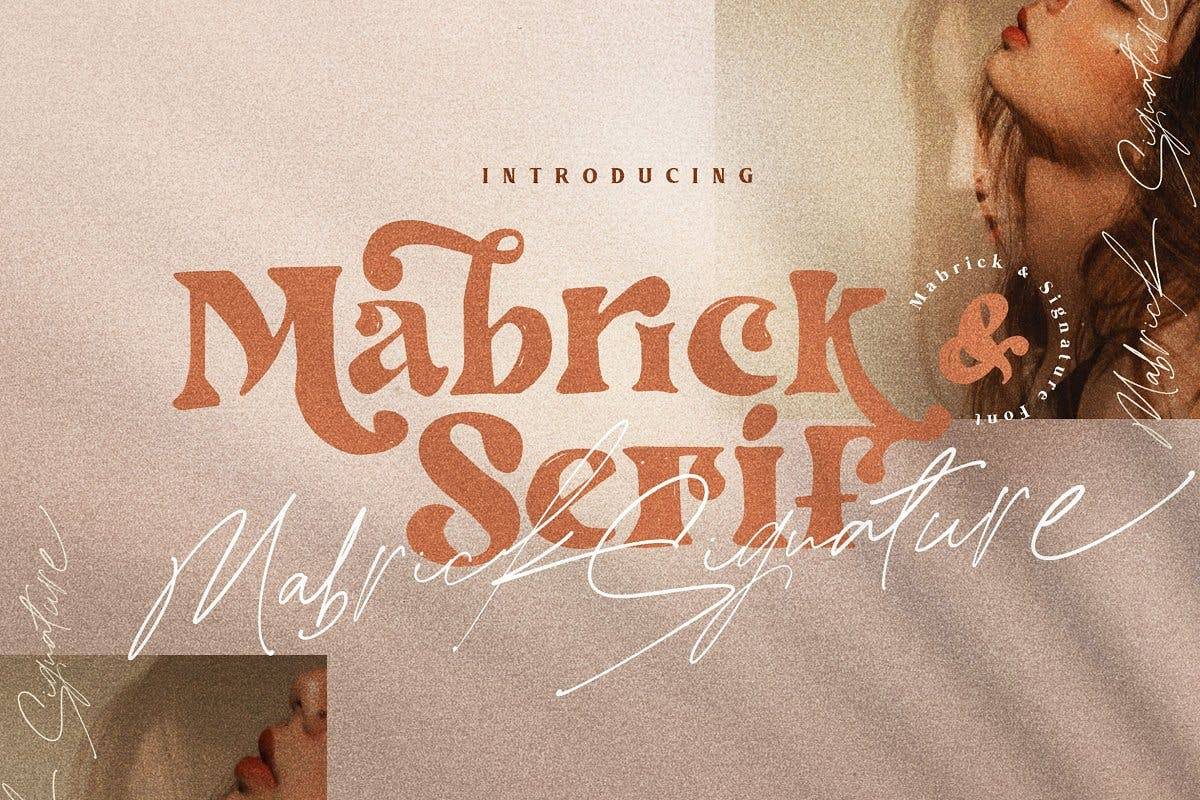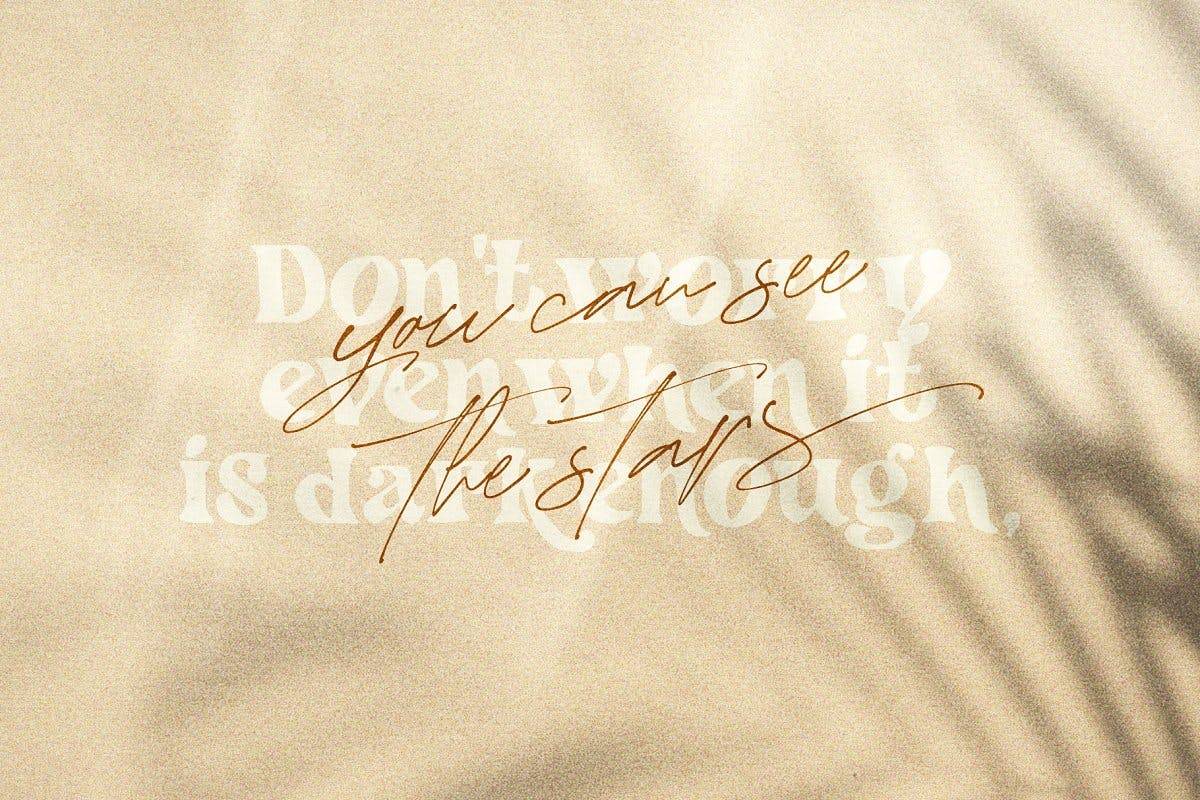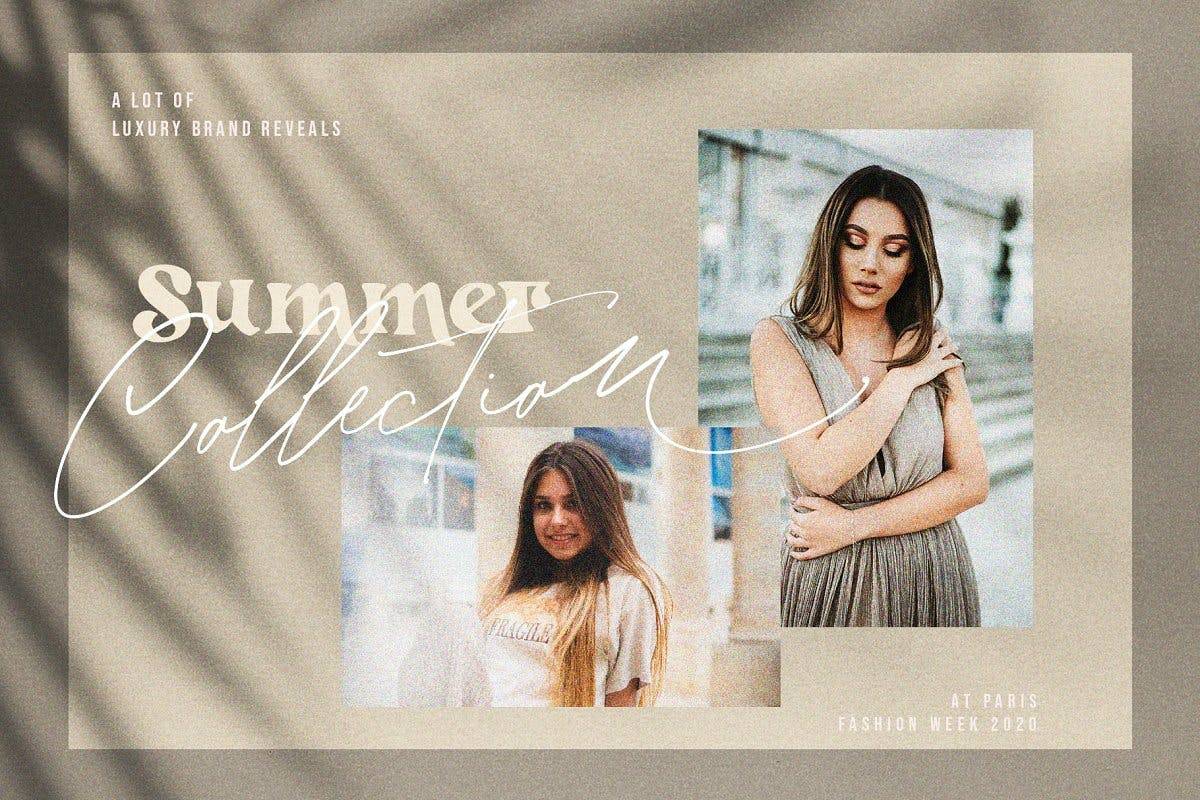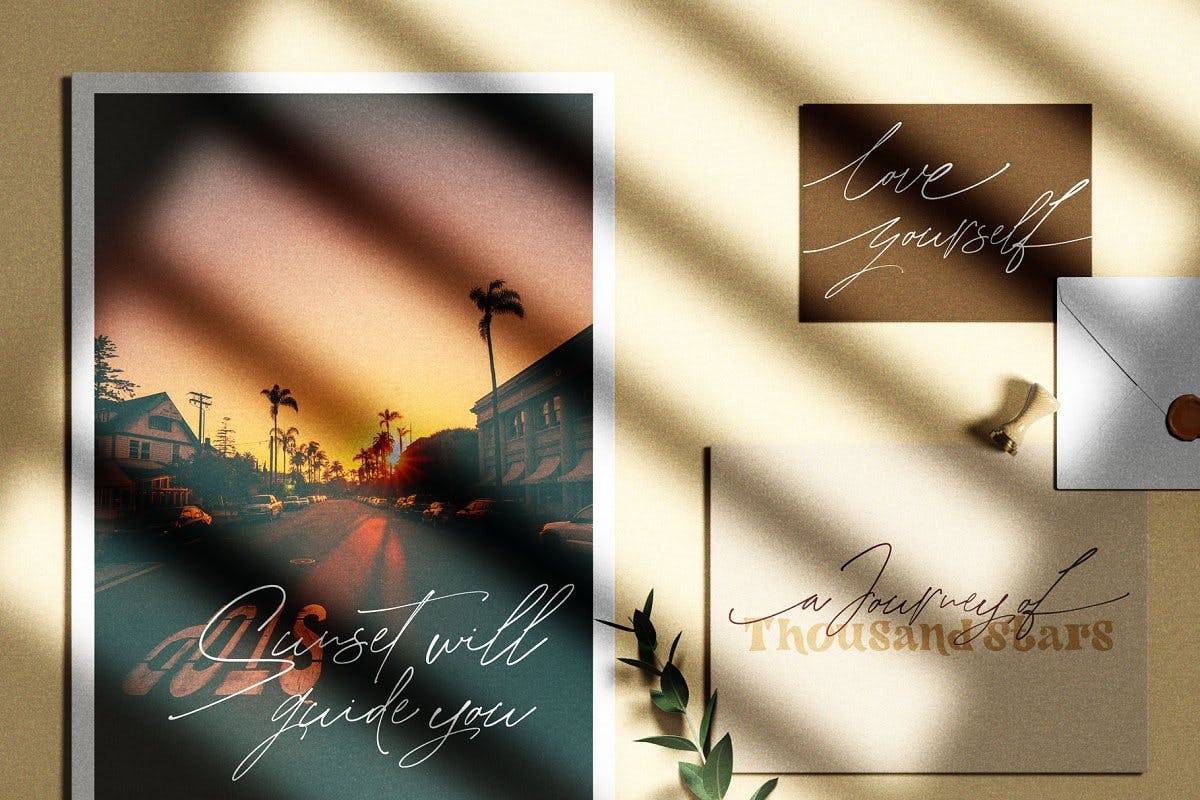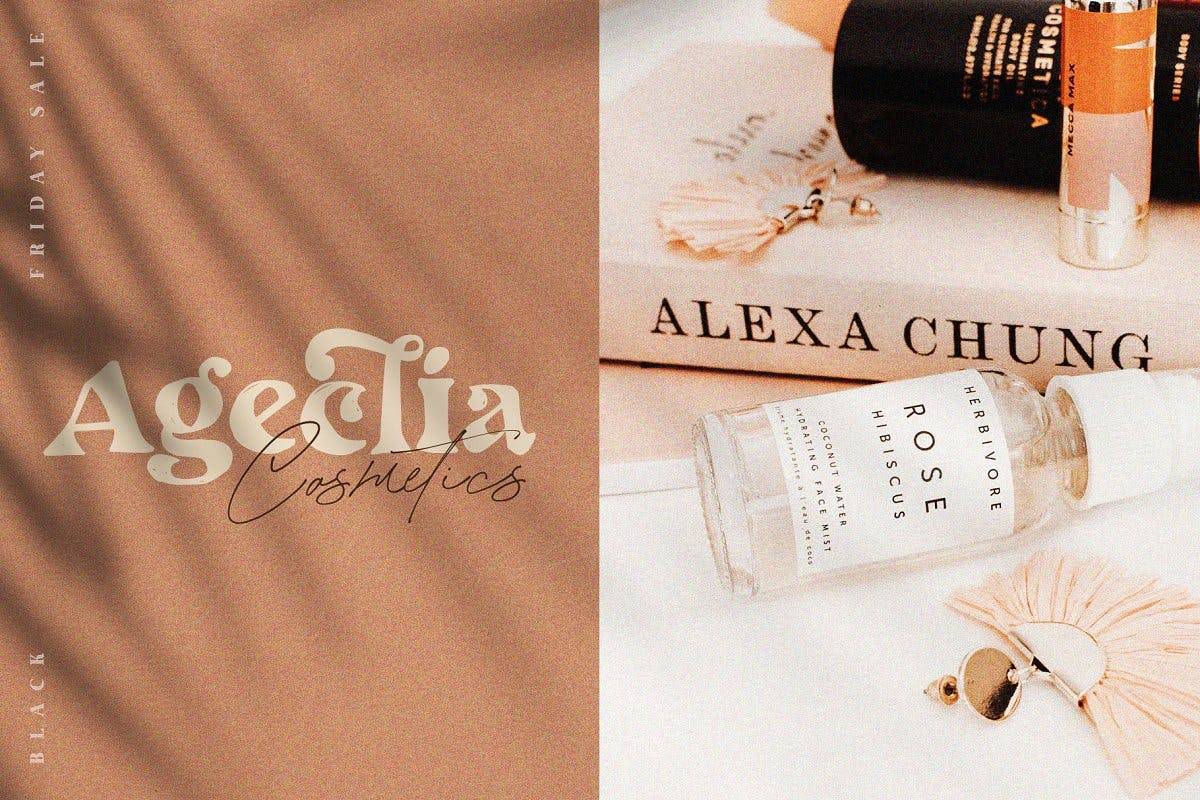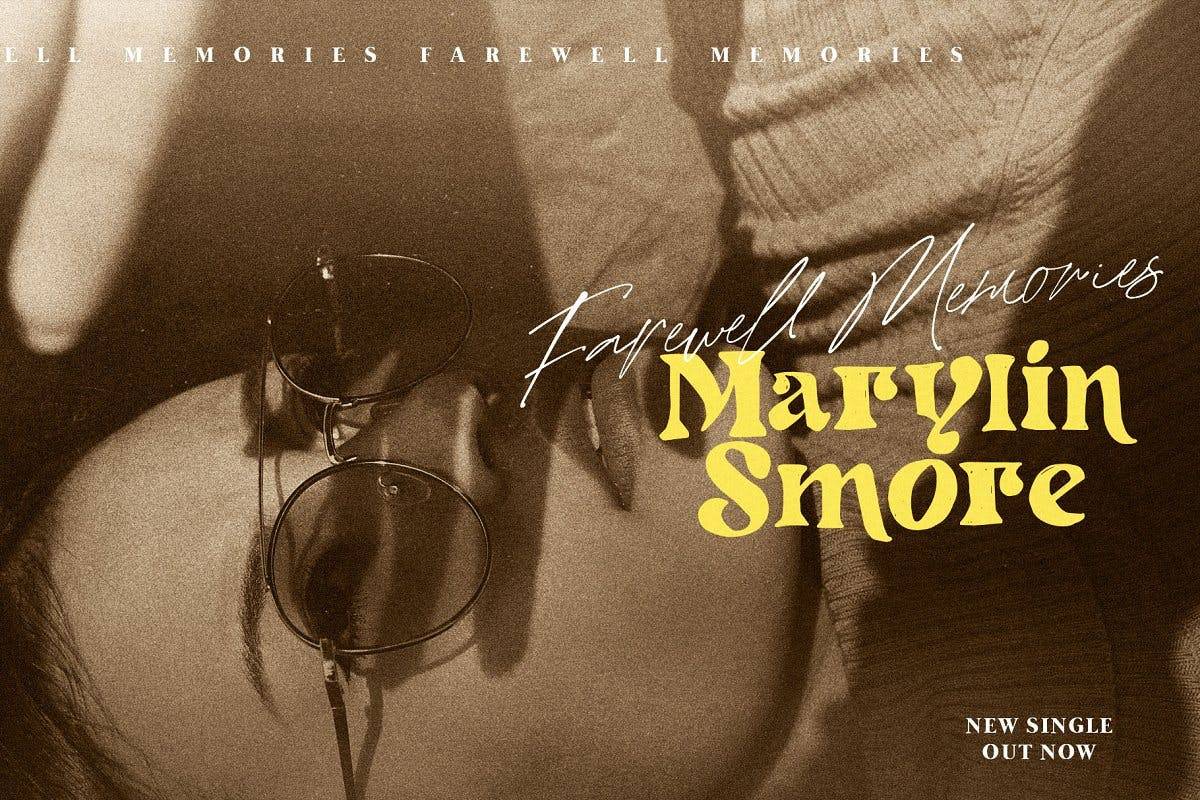
Mabrick Serif Rough is a bold, playful serif font with a textured, hand-crafted feel that adds character and charm. Its uneven strokes and whimsical letterforms make it ideal for creative projects seeking a vintage or artisanal vibe, perfect for eye-catching headlines, logos, and packaging that want to stand out with personality.
Mabrick Font Serif Rough Demo
About Mabrick Font Serif Rough Demo
| Designer | Hendra Maulia |